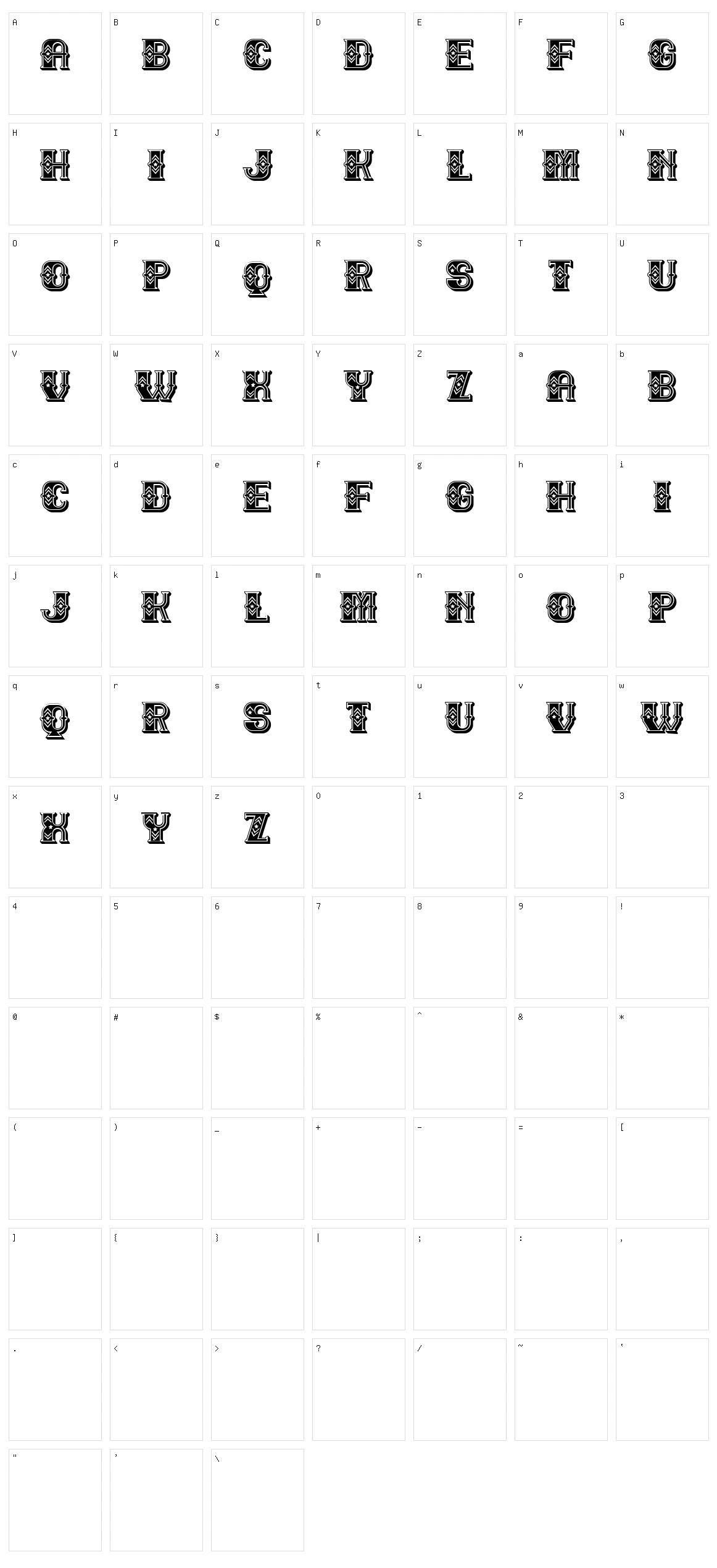
The free font Taxi 2 is carefully designed by Vladimir Nikolic, showcasing a thoughtful balance of creativity and usability and falls under the Retro font style. When you download the ZIP file, it contains only 42 KB of font files, making it lightweight and quick to download. Please review the license details below to understand permitted usage and distribution rights. If license information is not available, we recommend using this font for personal projects only or contacting the author directly for commercial usage permissions.